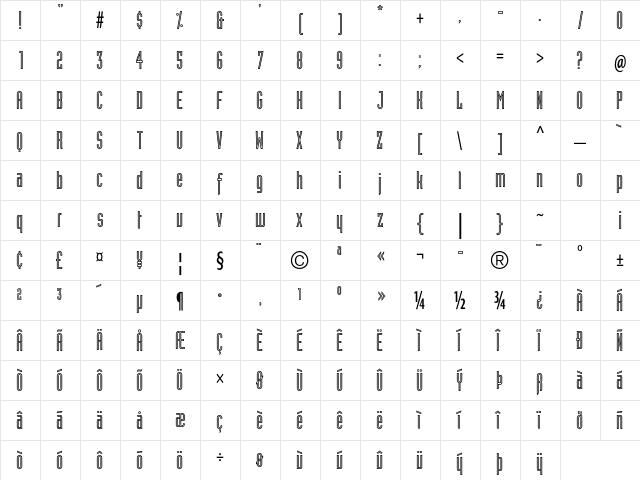
Industria LT Std Inline Font Preview
Industria LT Std Inline
Industria LT Std Inline Font Details
| Style | Inline |
| Designer | Neville Brody |
Design Context for Industria LT Std Typeface
Industria LT Std brings ornamental detail and strong personality to headlines and identities, where visual impact matters more than quiet functionality. The delicate stroke weight brings airiness and refinement to layouts.
Font Pairing: Pair with a clean neutral sans-serif for body copy to let Industria LT Std's character lead without overwhelming the composition.
Pro Tip: Treat Industria LT Std as the centrepiece of your typographic hierarchy. One strong heading set in a decorative face can carry an entire layout.